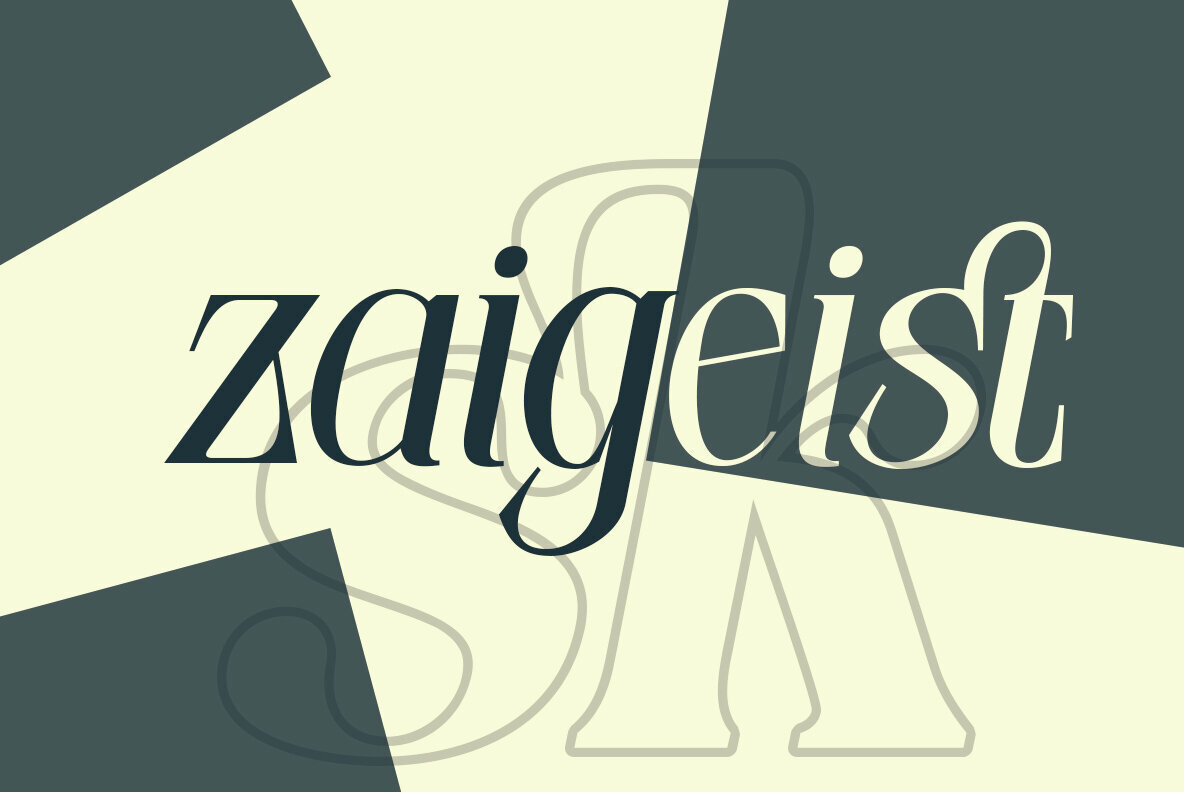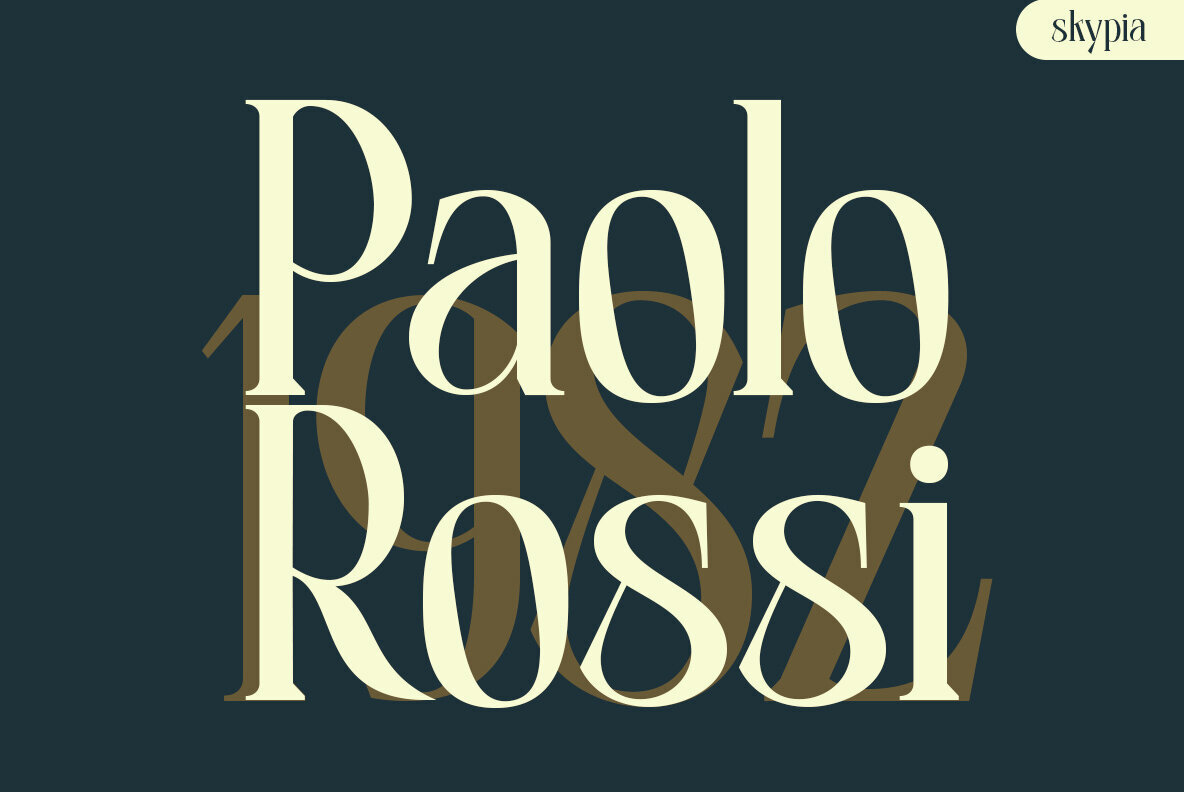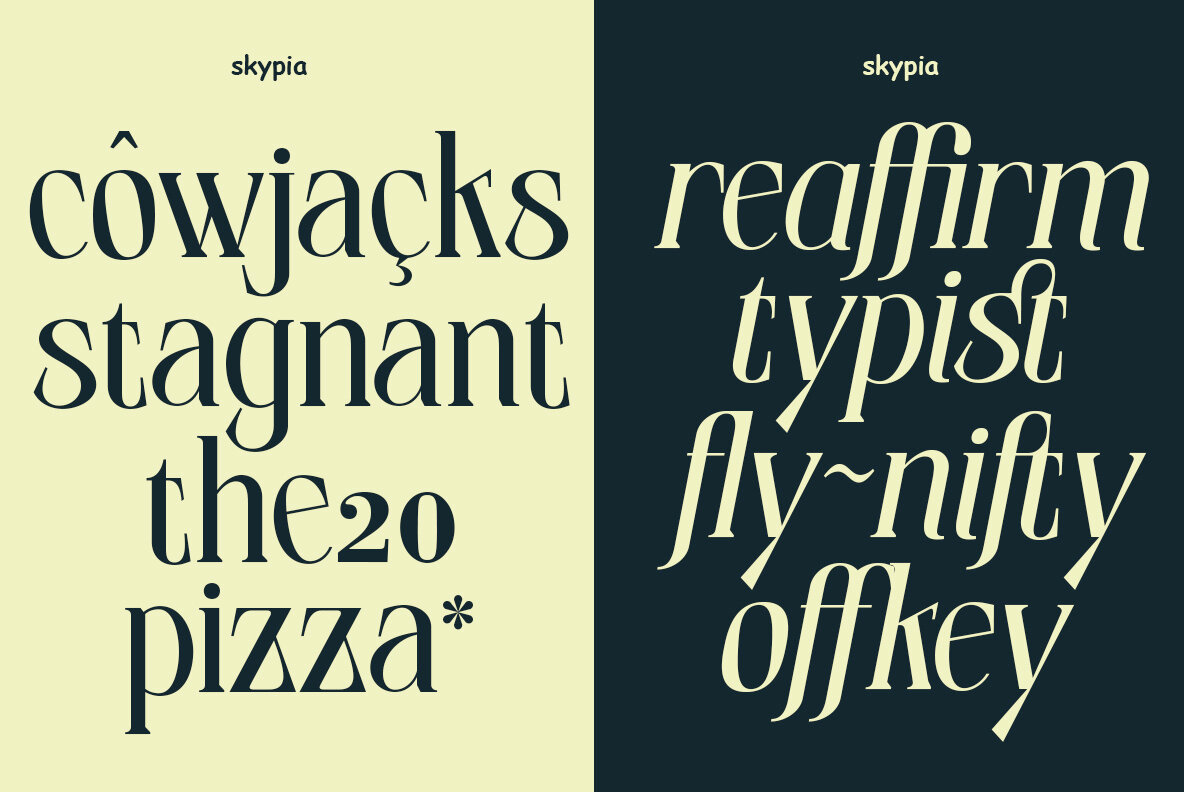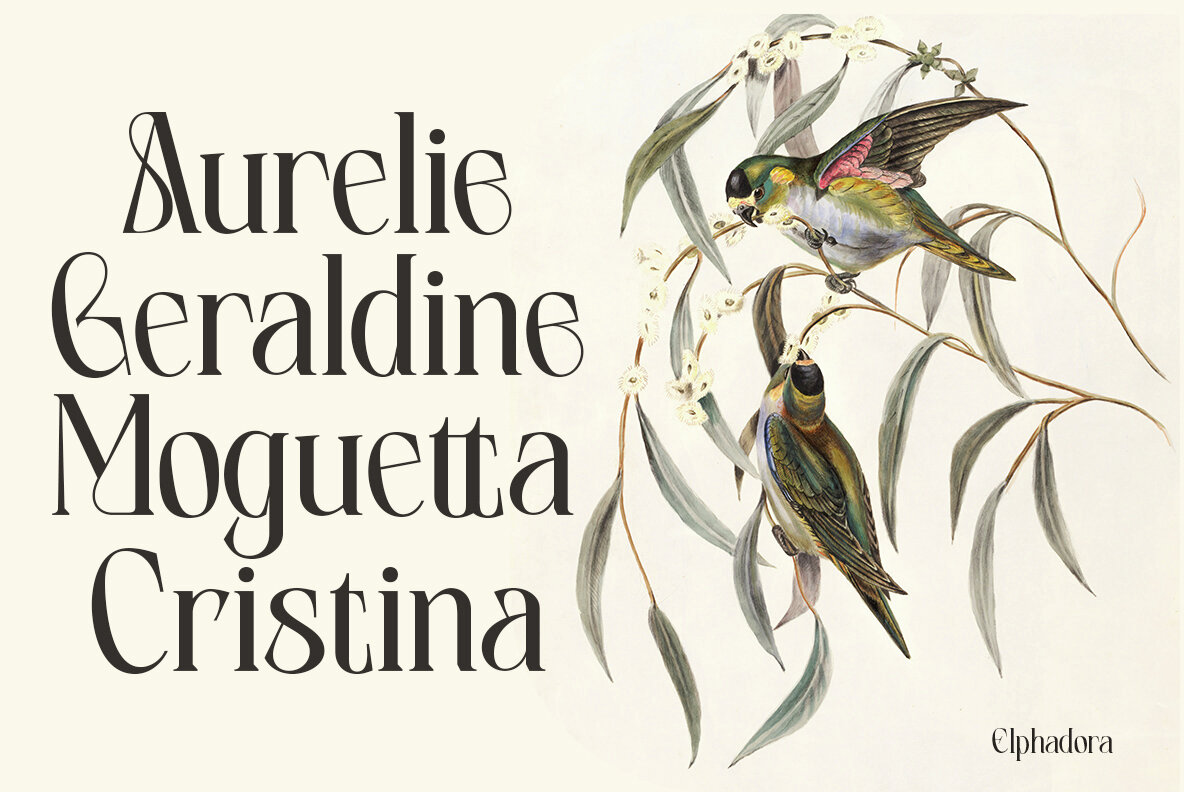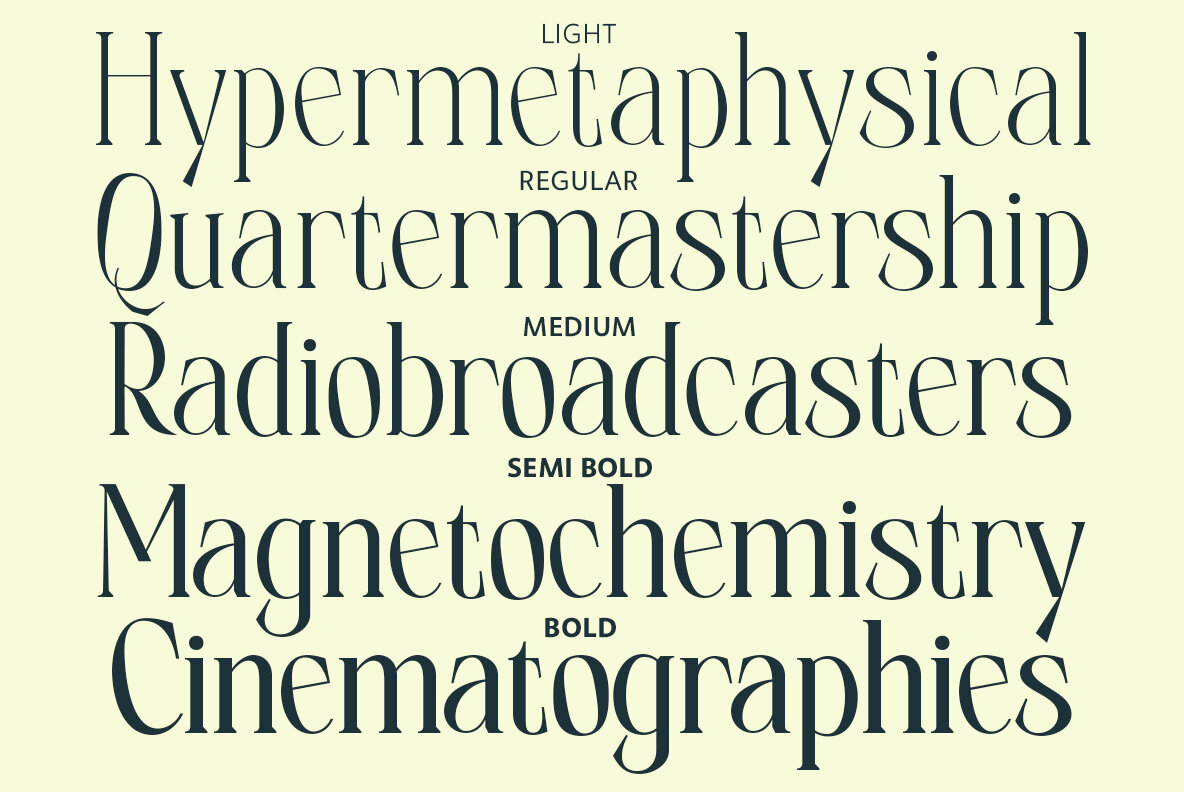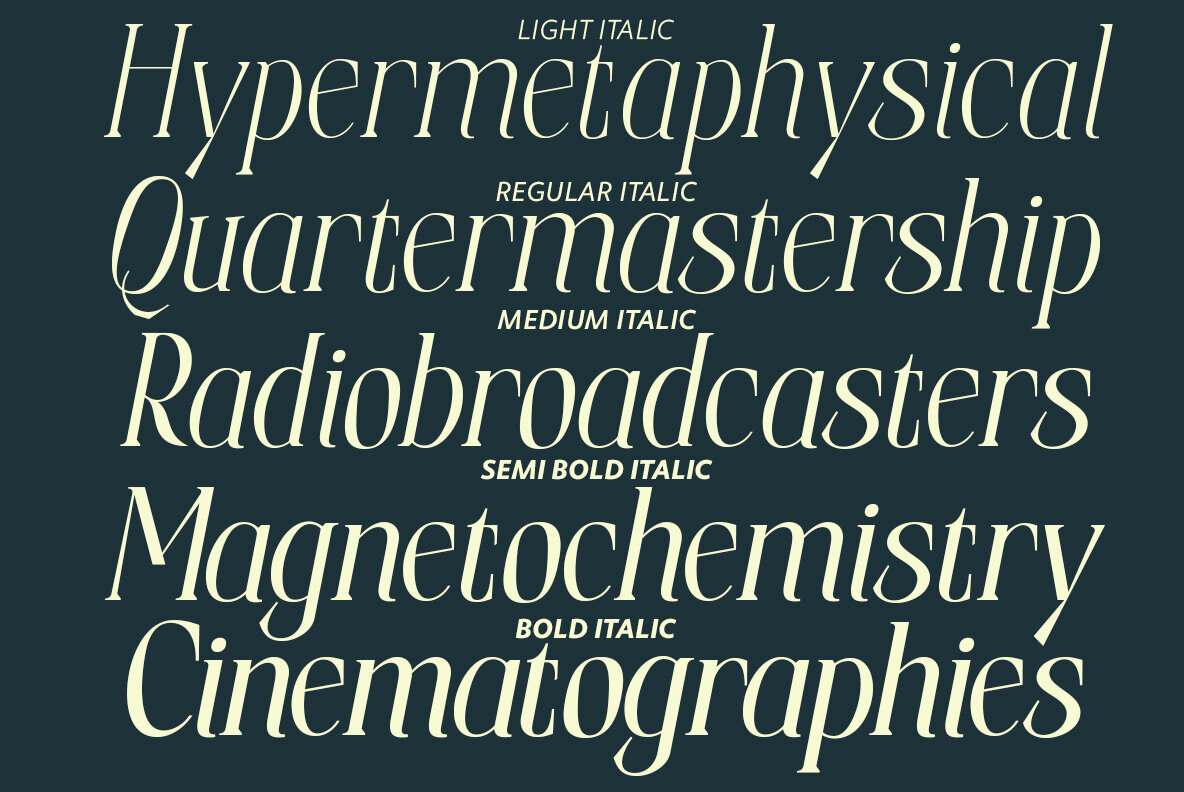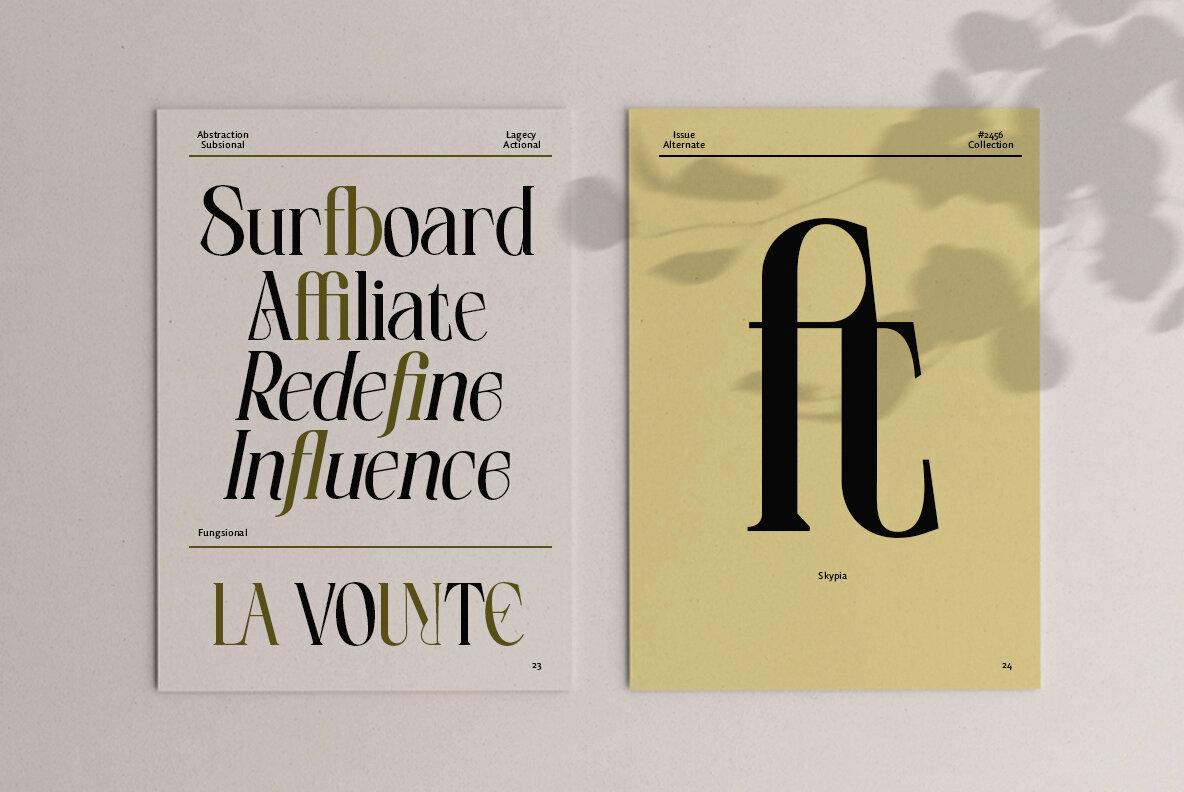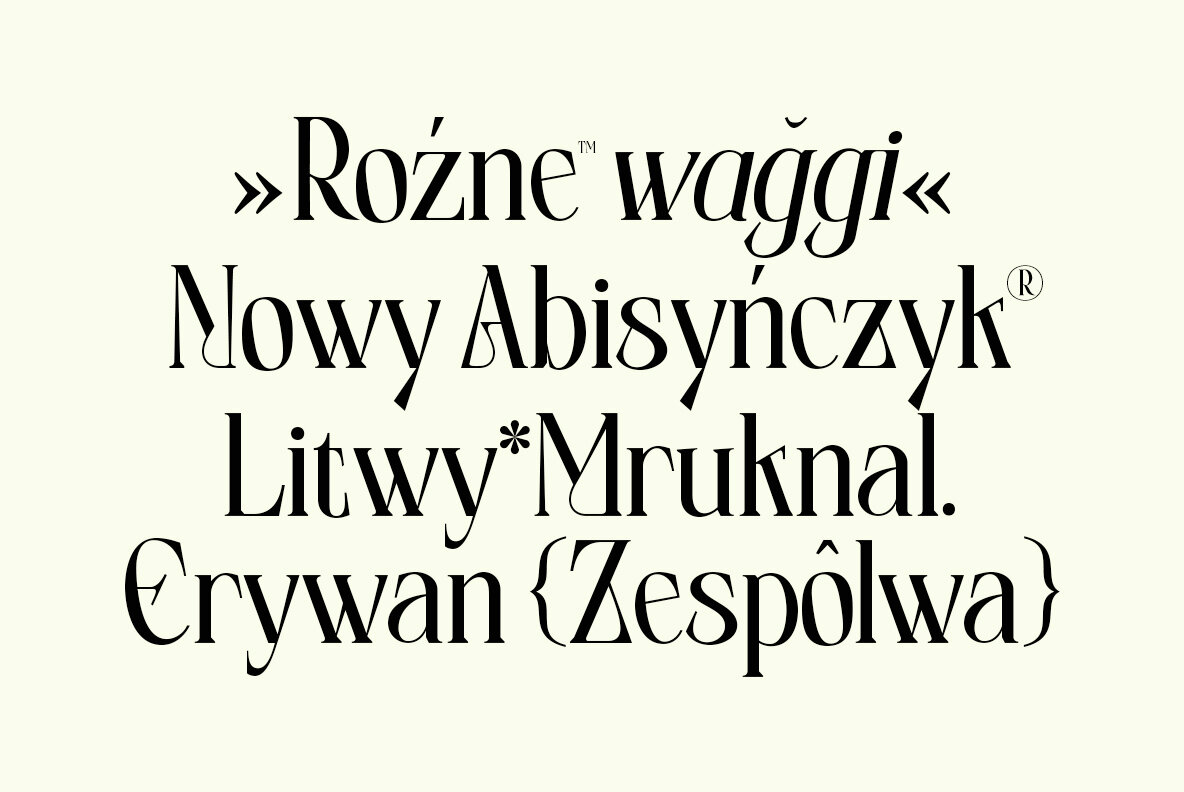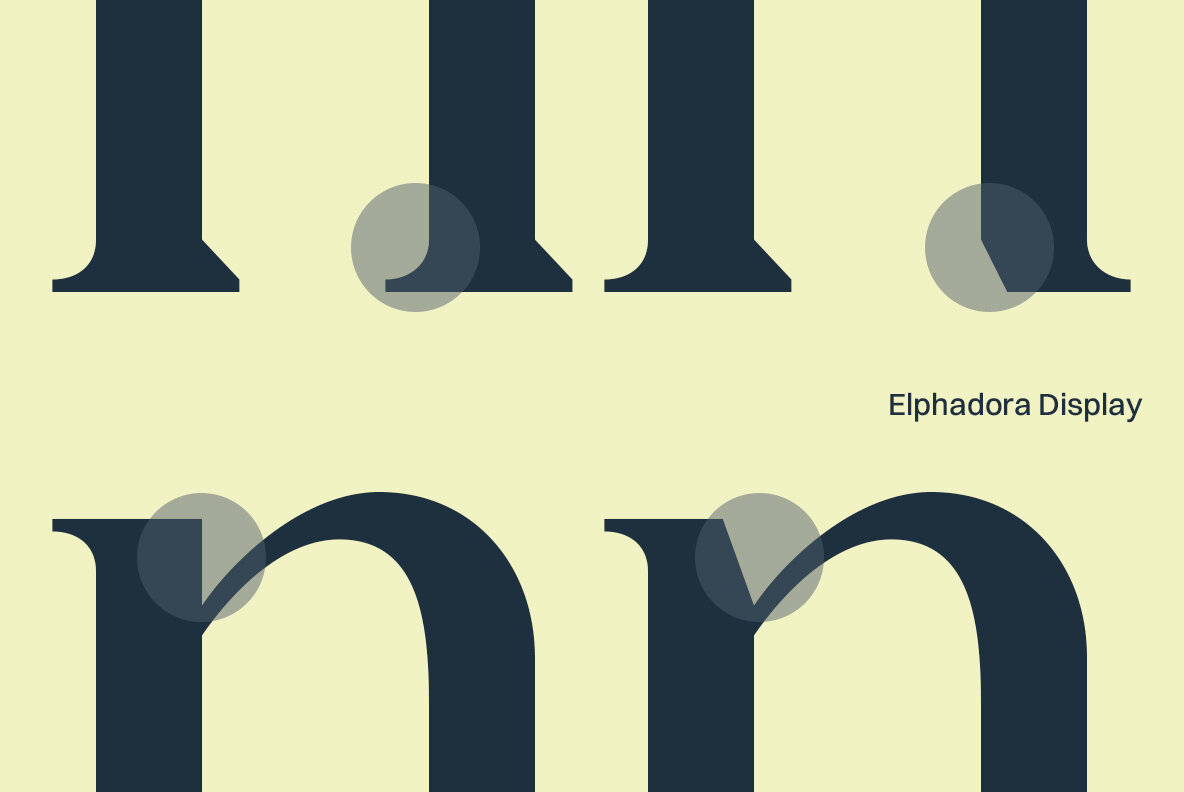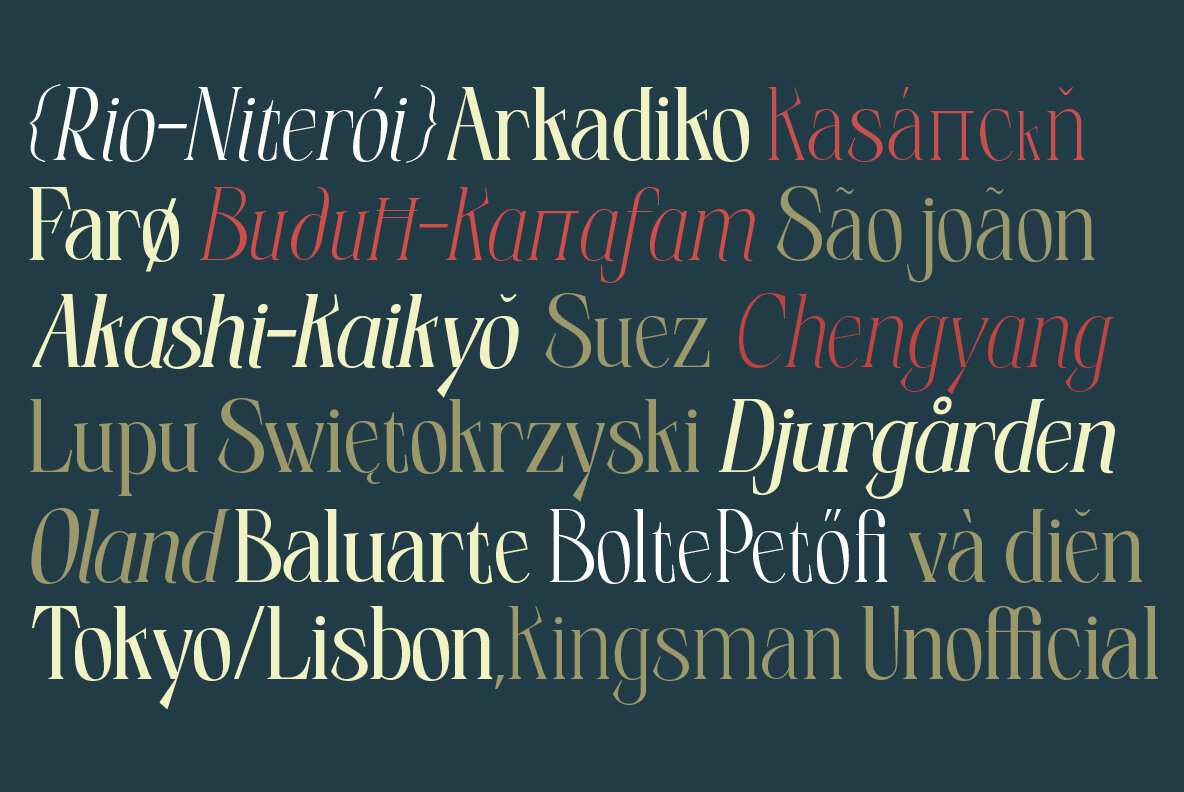
Elphadora Font
Elphadora is a versatile, high-contrast display serif font that combines modern and classic design elements. This font supports multiple languages, numbers, punctuation, and alternative ligatures. Elphadora is designed to bring pleasure to its users and be a perfect addition to any font collection. Thank you, SkypiaElphadora: A Modern-Classic Display Serif